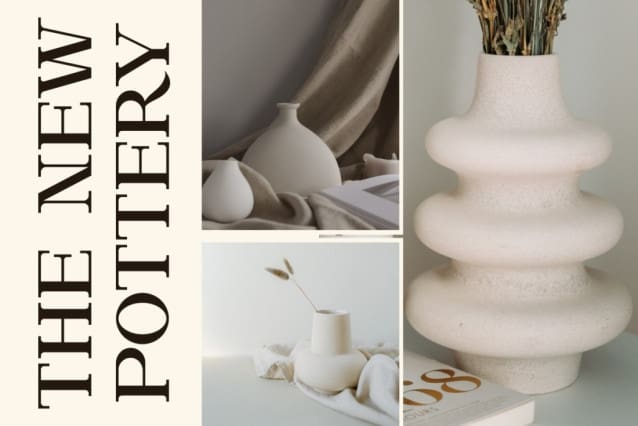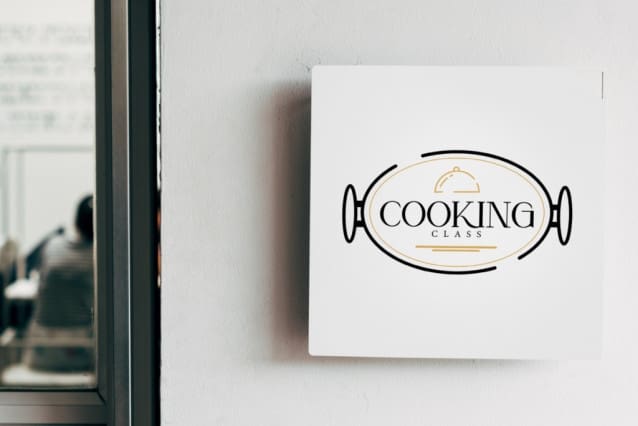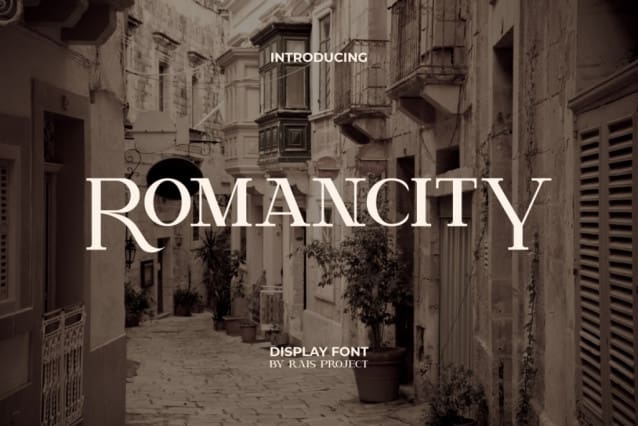
Roman City Font
Roman City Font is a classic nice serif display font. The lowercase on this font has a smaller size and hangs above than the character of the uppercase. It will be good for any designs, such as brand image, business card, cover, custom design, flyer, invitation, label, marketing material, menu, poster, product packaging, quote, signage, website page, and more!
Roman City Font includes a full set of ALL CAPS with different size between Uppercase and Lowercase Letters, Numerals, and large range of Punctuation. This beautiful font will be suitable for various industries, such as accessories, advertising, cafe, crafting, event or wedding organizer, fashion, furniture, marketing, movie, printing, publishing, real estate, restaurant, spa salon, etc.